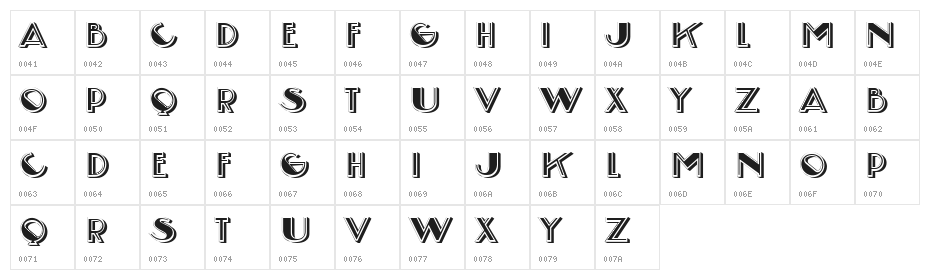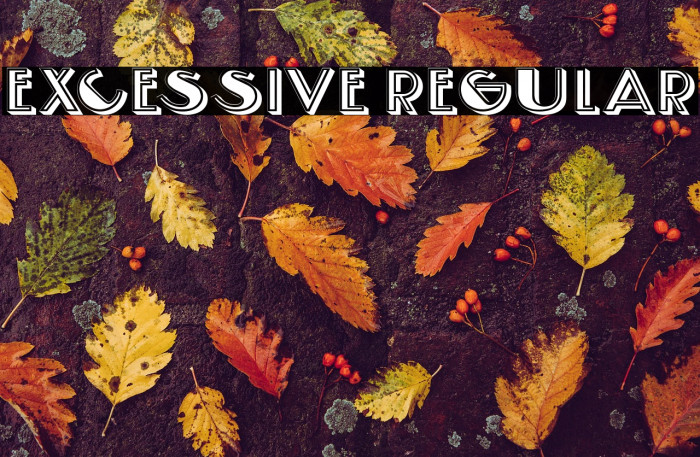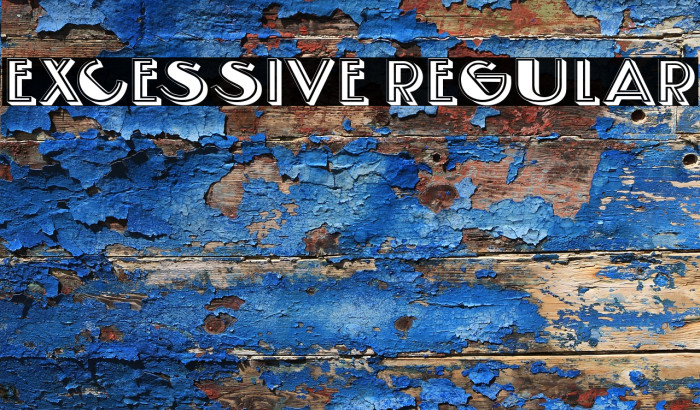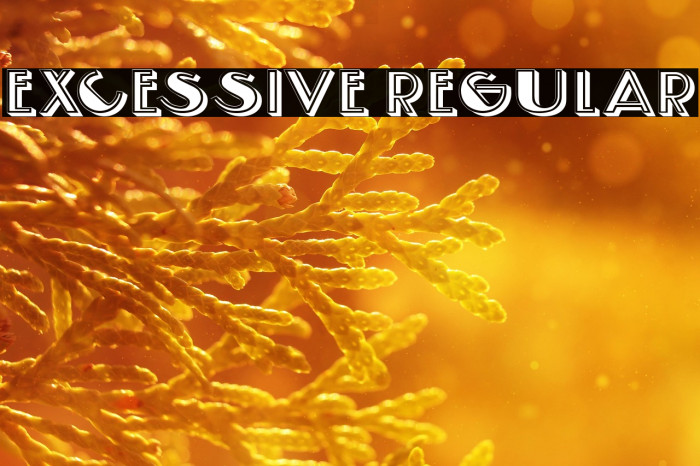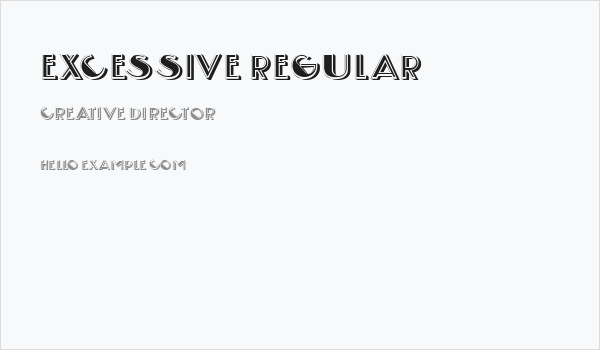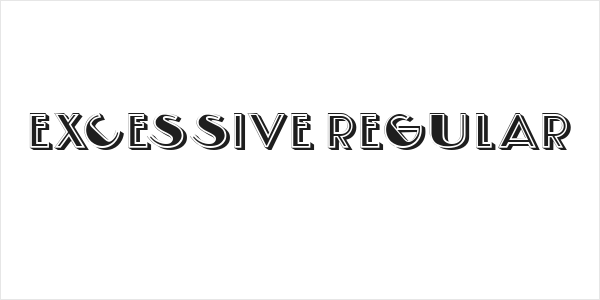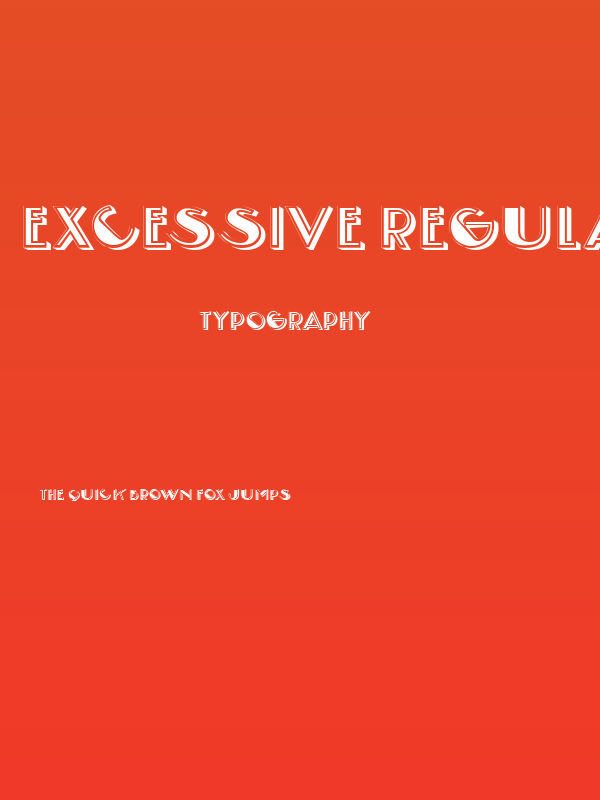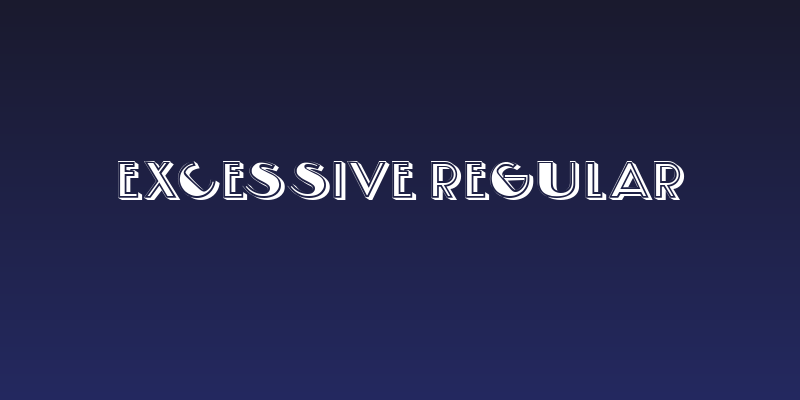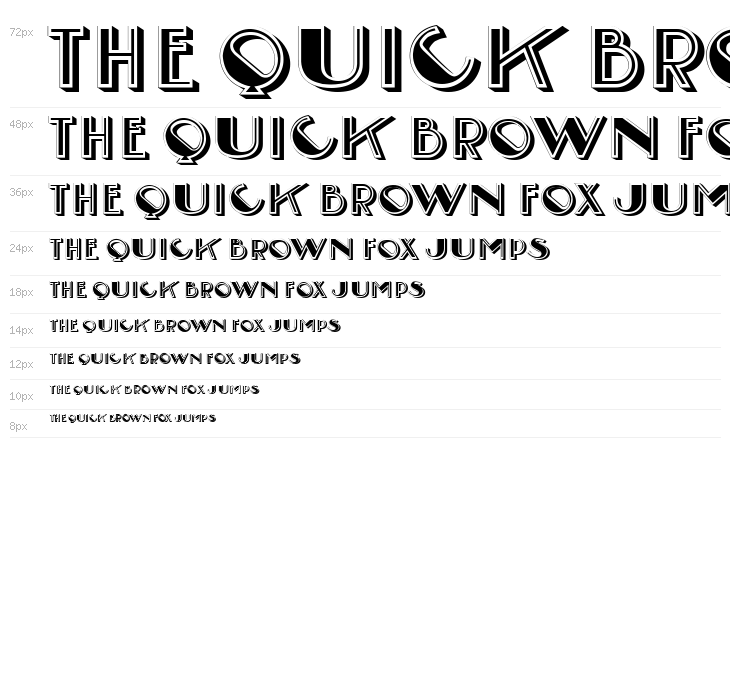
Excessive Regular Font
Excessive Regular Description
This font features a bold and striking design with a strong geometric influence. The characters are constructed with a combination of thick and thin lines, creating a dynamic and eye-catching effect. The use of sharp angles and clean lines gives it a modern and futuristic appearance. The font's unique style is further enhanced by its three-dimensional shadow effect, which adds depth and dimension to the text. This makes it particularly suitable for display purposes where attention-grabbing typography is desired. The uppercase letters are consistent in height, providing a uniform and structured look.